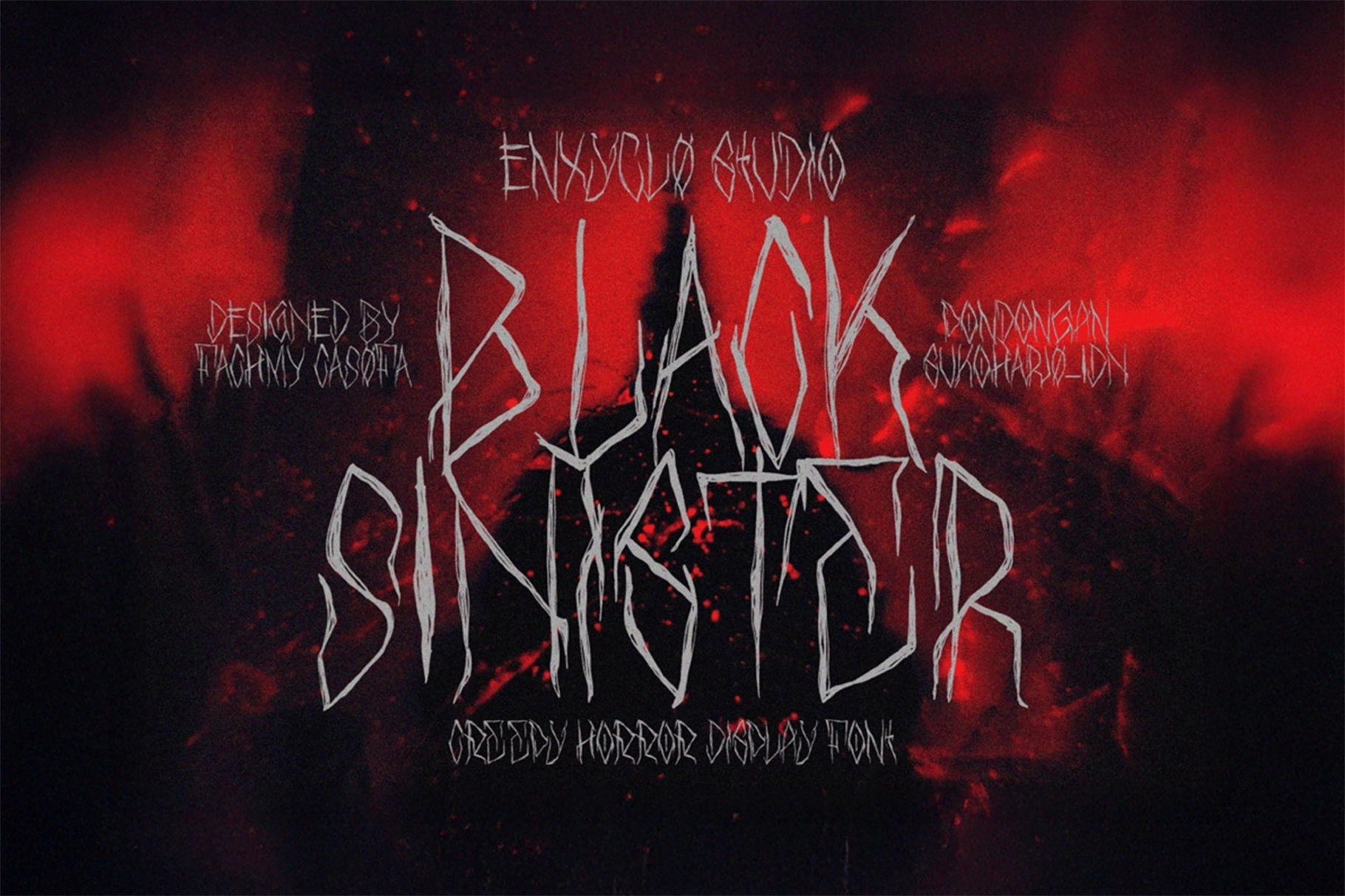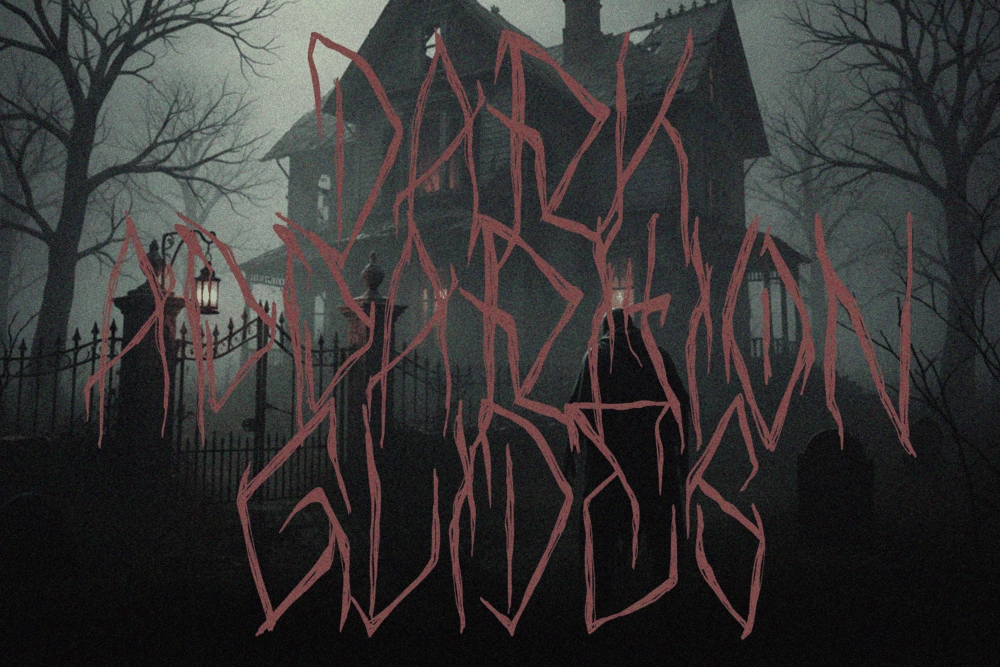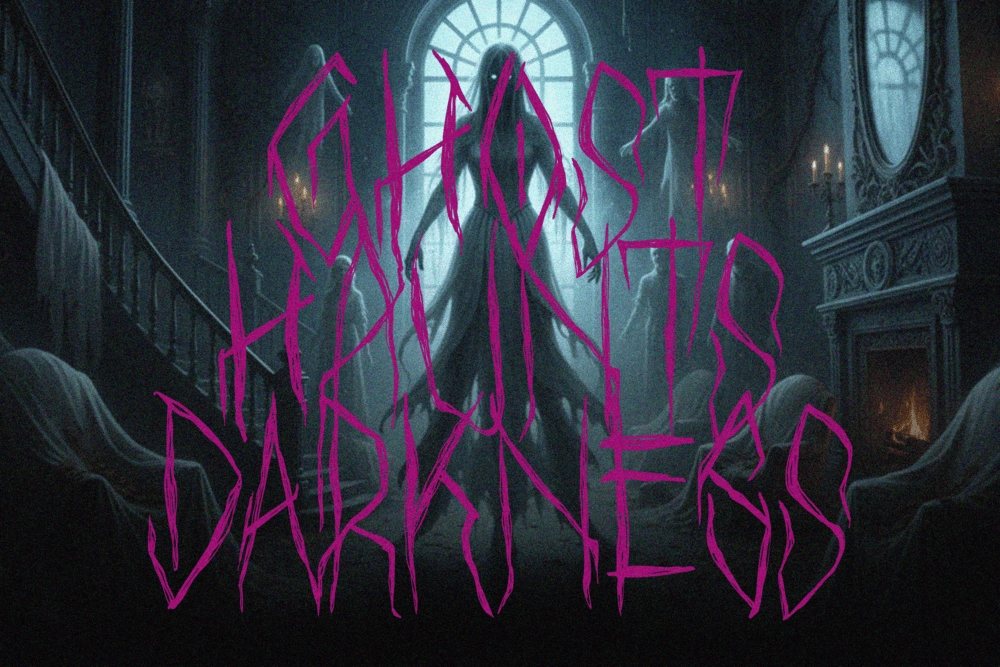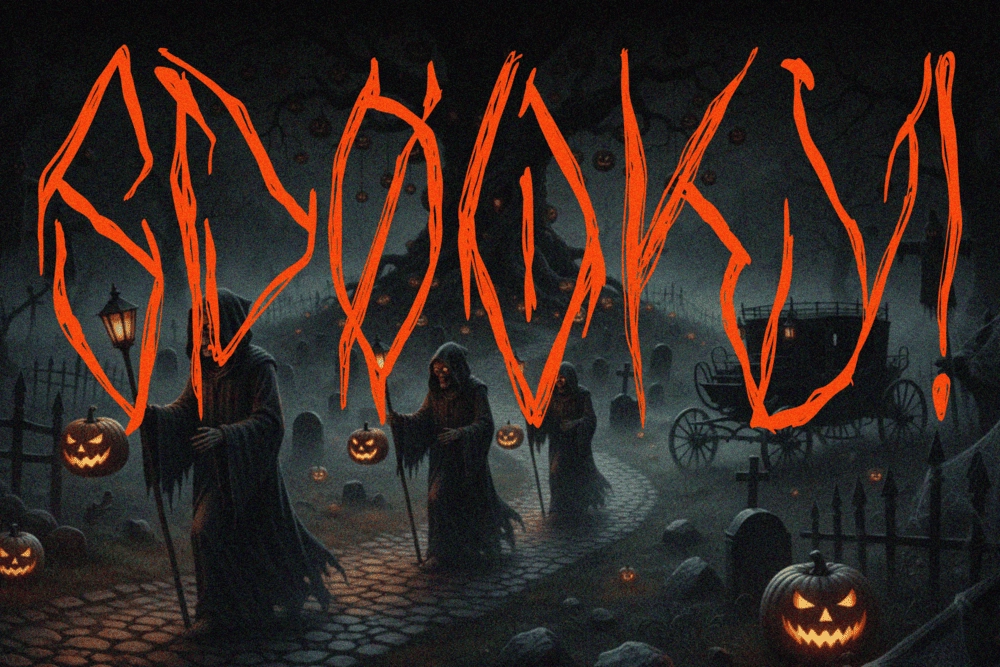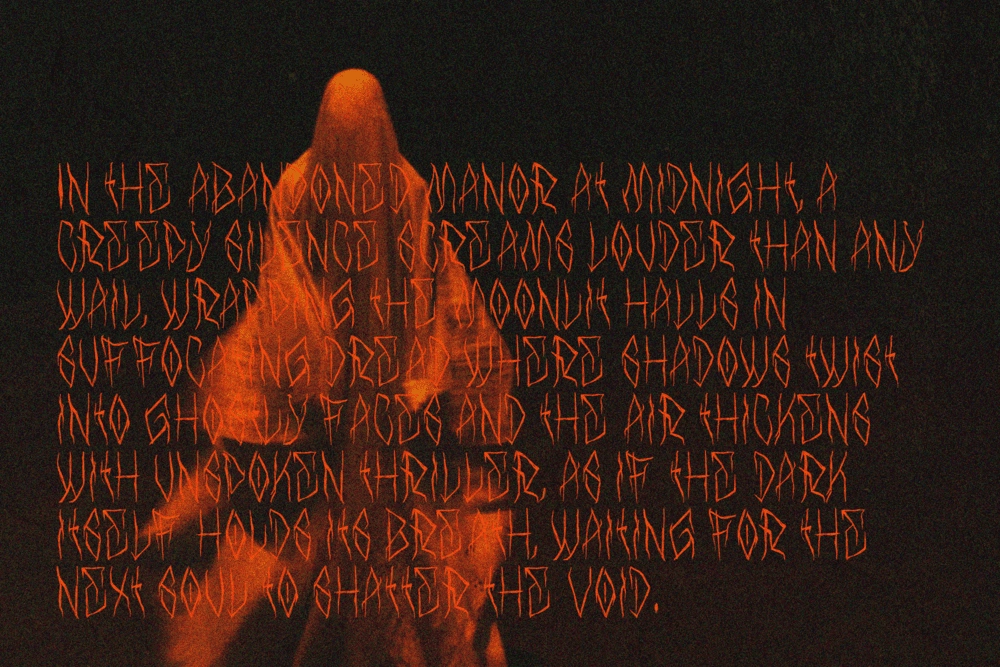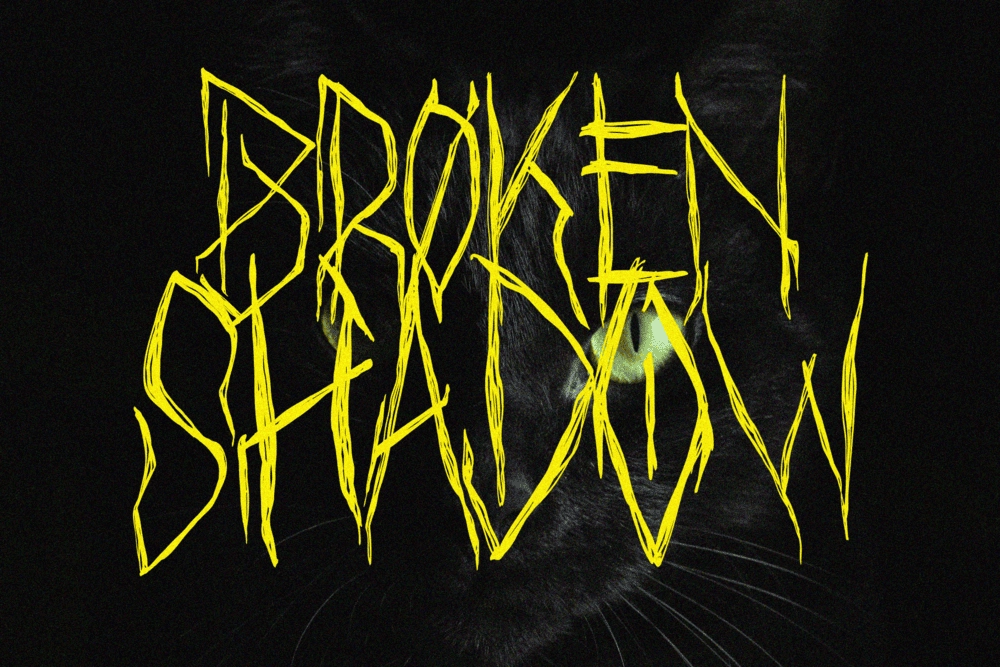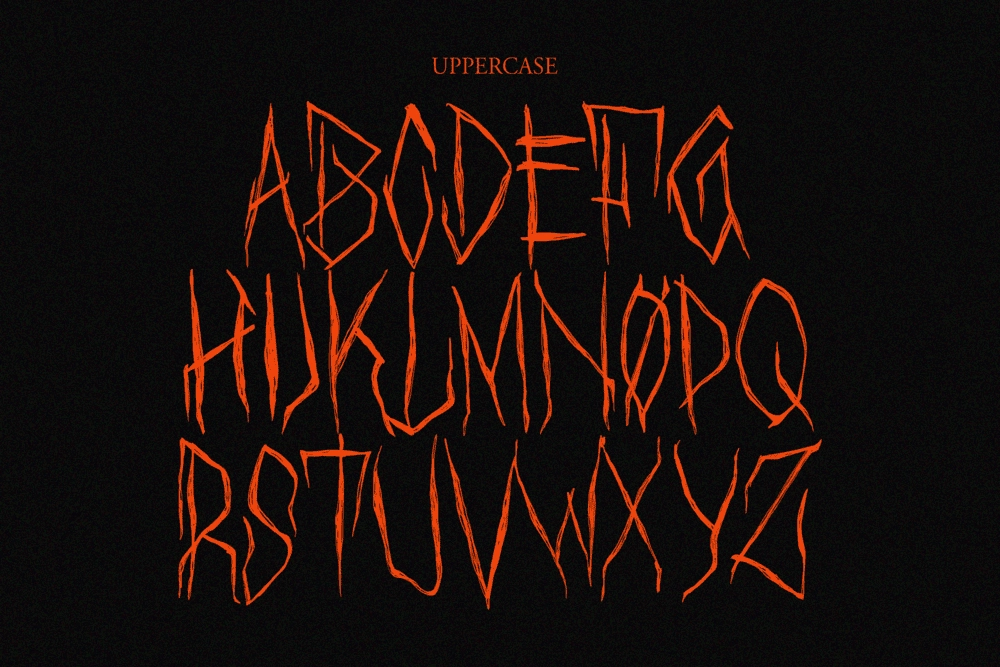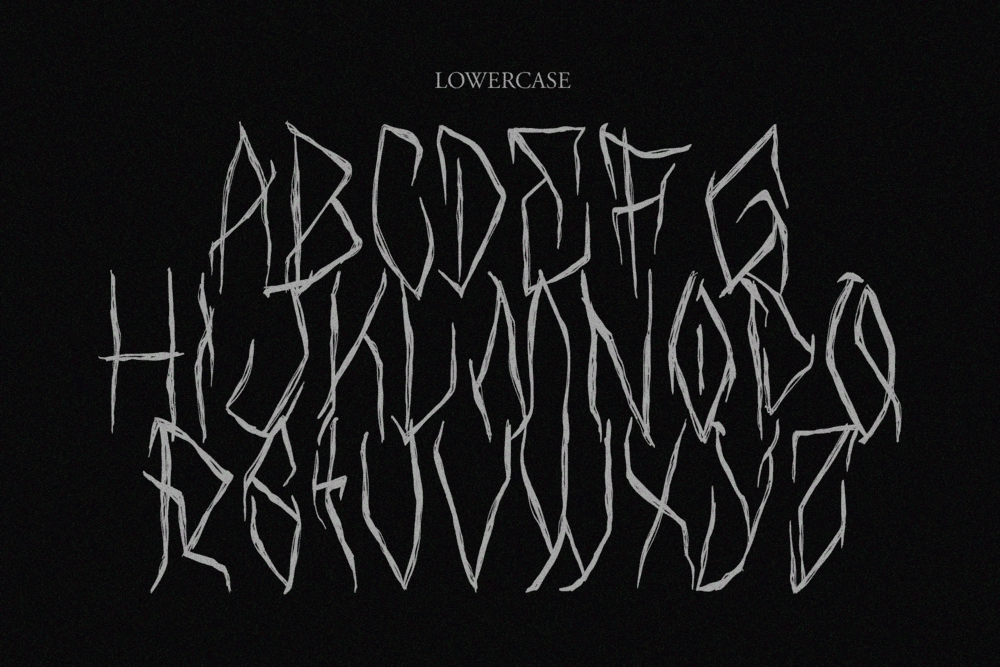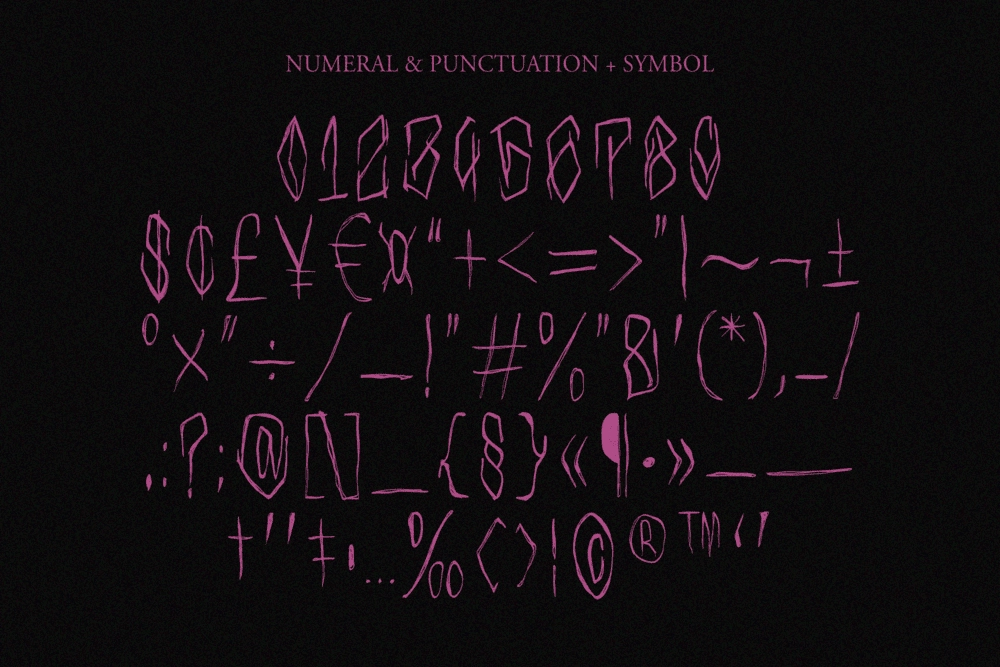
Black Sinister - Creepy Horror Display Font
Black Sinister – Creepy Horror Display Font is a dramatic display typeface designed to capture the chilling atmosphere of classic horror aesthetics. Featuring jagged shapes, eerie curves, and unsettling letterforms, this font delivers a haunting visual presence that instantly evokes suspense and dark storytelling. Its bold construction ensures strong visibility while maintaining the creepy character that makes horror-themed designs stand out.
Perfect for Halloween graphics, horror movie titles, posters, event branding, and spooky merchandise, Black Sinister brings a sinister personality to every composition. The distinctive letterforms combine frightening style with clear readability, making it ideal for headlines and dramatic typography that demand attention.
• Uppercase & Lowercase Characters
• Numerals
• Punctuation & Symbols
• Creepy Horror Display Style